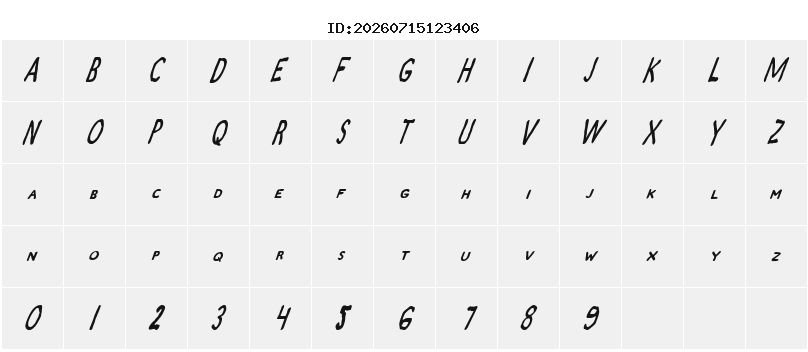
Zamboni Joe Italic Preview
• Font Name: Zamboni Joe Italic
• Full Font Name: Zamboni Joe Italic
About Zamboni Joe Italic.ttf
Zamboni Joe Italic.ttf is a modern, elegant sans-serif font designed for ultimate readability and visual harmony. Perfect for branding, headlines, web design, and print materials.